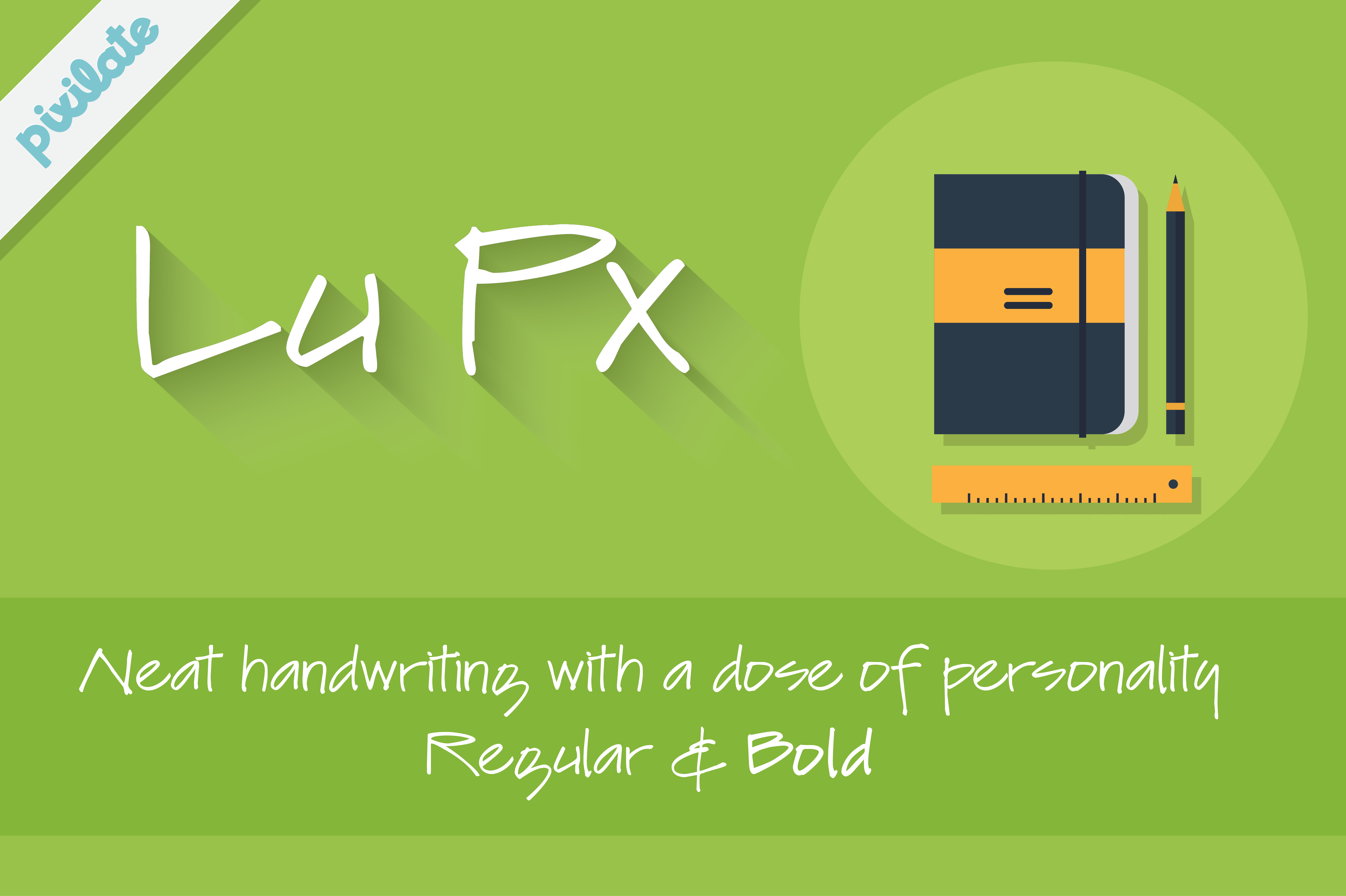
Lu Px natural handwriting font
Based on an architect’s handwriting, Lu has a good balance between quirkiness and legibility. With an extended character set, it is a good choice for setting short texts. Lu has a very complete character set- support for most european latin languages.